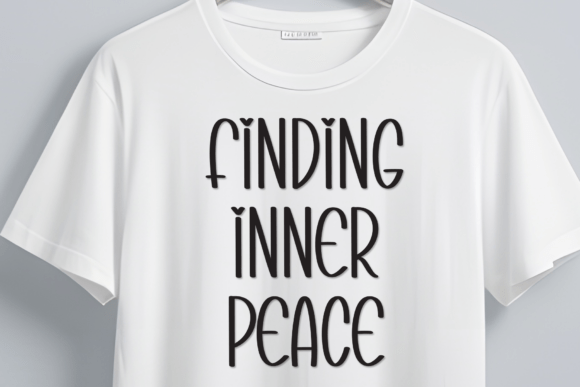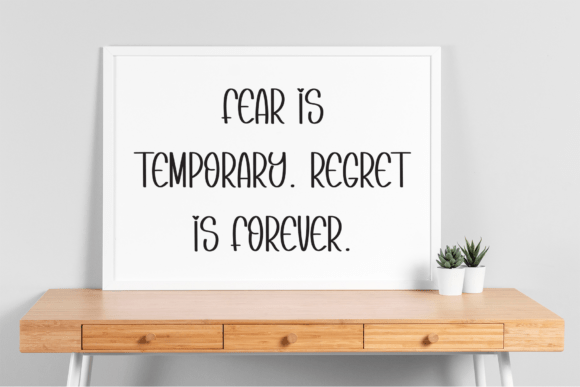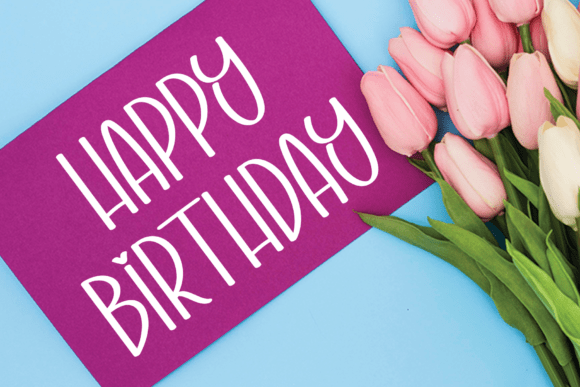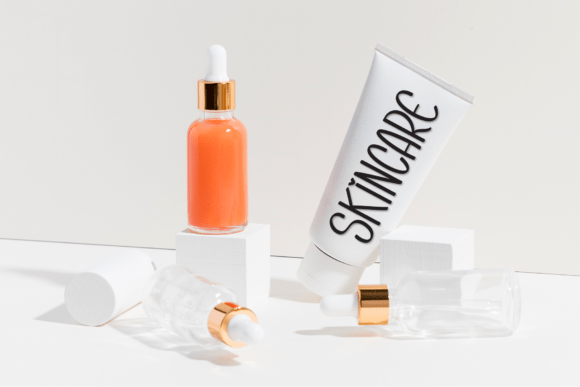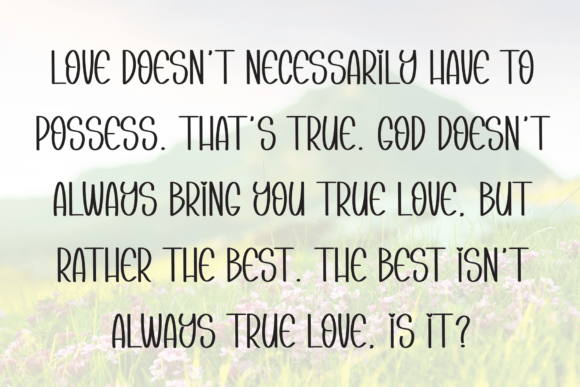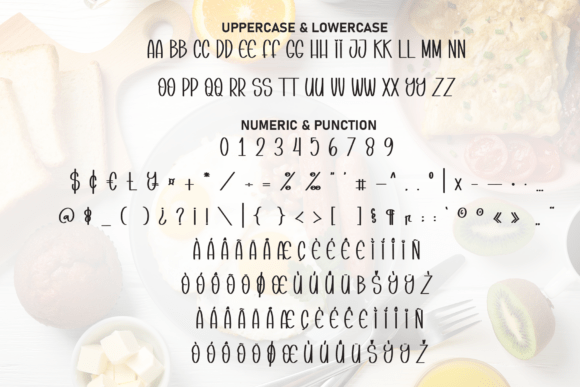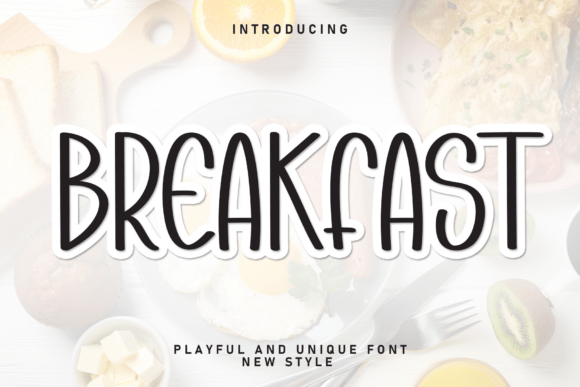
Starting Your Day with a Delicious Font
There’s nothing quite like the thrill of opening your computer to a blank canvas, a fresh design waiting to be born. The possibilities are endless, and the excitement is palpable. But what if you could give your designs a personal touch, a dash of whimsy that sets them apart from the ordinary? That’s where the enchanting Breakfast Font comes in – a charming, artisan display font that embodies the soft simplicity and genuine warmth of a sunny morning.
This delightful typeface is not just a tool for designers, but a playground for creativity. With Breakfast Font, you can transform your wedding invites, treasured cards, and digital designs into visually appealing masterpieces that speak the language of art. Its friendly spirit and whimsical essence make it a valuable addition to any designer’s toolkit, offering a unique way to connect with your audience and leave a lasting impression.
Breakfast Font Key Features
- Font Family: Breakfast Font is a sans-serif font family designed by Fontfabric.
- Unique Characteristics: Breakfast Font features a clean, modern design with a subtle rounded edge, making it perfect for branding, advertising, and editorial projects.
Designer Review: Breakfast Font
Breakfast Font is a quirky, modern sans-serif font designed to bring a touch of whimsy to your designs. I think it’s a great choice for projects that need a friendly, approachable vibe. ✨ The font’s rounded edges and playful letterforms make it perfect for branding, packaging, or editorial content that wants to feel approachable and fun.
One of the standout features of Breakfast Font is its extensive character set. The font includes a wide range of languages and special characters, making it a versatile choice for designers working on global projects. ✨ The font also includes several alternates and swashes, which can add a nice touch of personality to your designs.
While Breakfast Font is a solid choice for many projects, there are a few limitations to consider. ⚠️ The font may not be the best choice for serious or professional projects, as its playful nature can come across as unprofessional. Additionally, the font’s rounded edges may not be suitable for projects that require a more aggressive or edgy aesthetic.
- Playful, approachable vibe
- Extensive character set
- Alternates and swashes available
- May not be suitable for serious or professional projects
- Not ideal for aggressive or edgy designs
Overall, I think Breakfast Font is a great choice for designers looking for a friendly, approachable font. While it may not be the best choice for every project, its unique character set and playful vibe make it a solid addition to any designer’s toolkit. ✨
For best results, pair the Breakfast Font with bold, playful graphics and bright colors.
Use the font for headings and titles to add a touch of whimsy to your designs.
The Breakfast Font is perfect for:
Creative agency websites and marketing materials.
Food and beverage branding.
Children’s educational materials and entertainment.